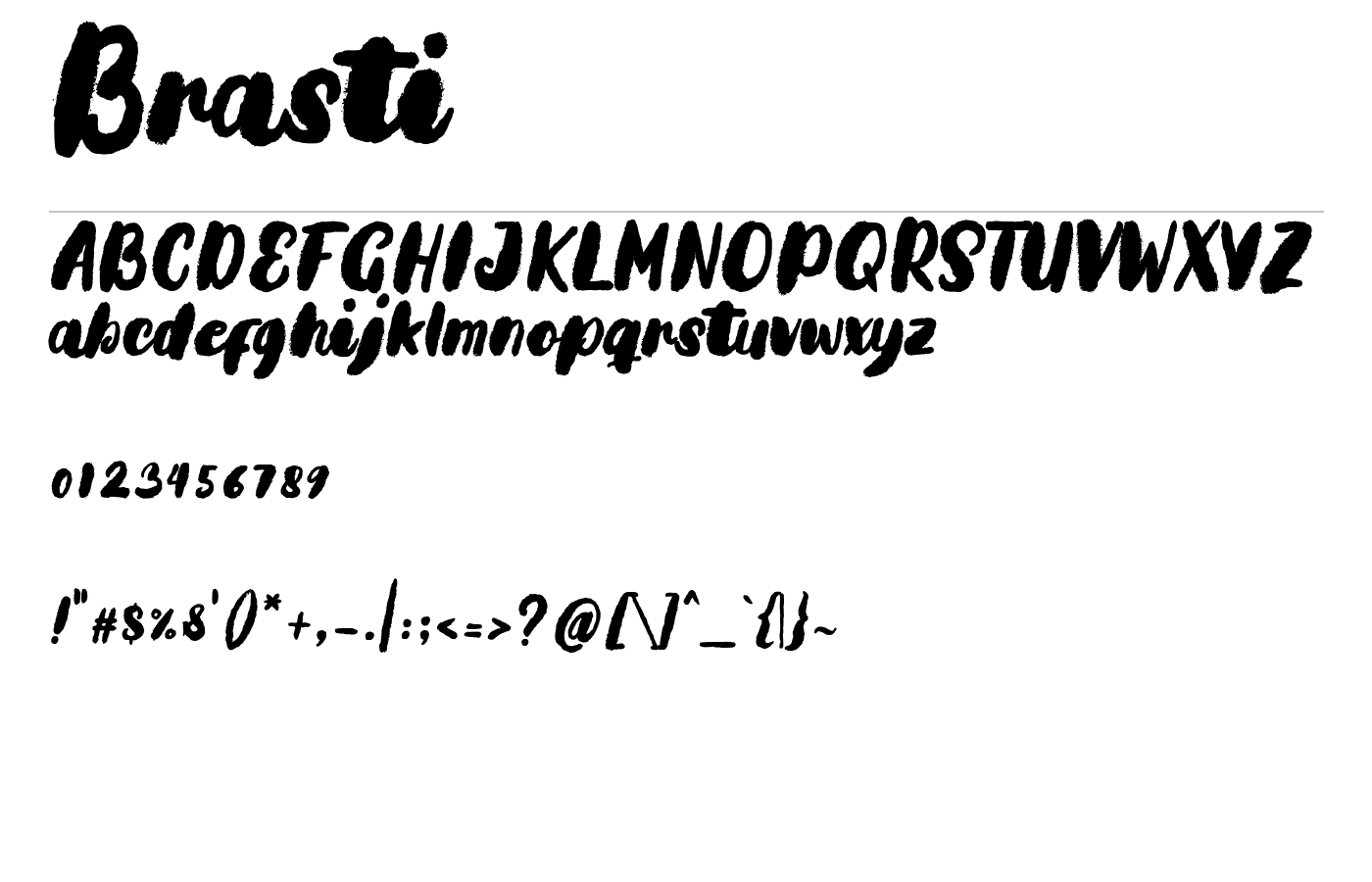
Brasti is a bold, brush-script font that features a lively and textured hand-painted look, giving it a casual and artistic personality. Its thick, uneven strokes and slightly condensed letterforms make it ideal for expressive headlines, branding, and creative projects where a natural, handcrafted feel is desired. This font works well in designs that want to convey energy, creativity, and a personal touch.
Brasti Font
About Brasti Font
| Font family | Brasti Font |
| Designer | Vaiminit |